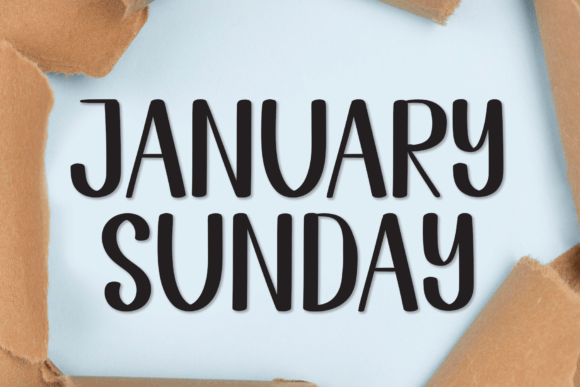
Step into the enchanting world of January Sunday, the script font that captures the essence of handwritten elegance. This all-caps masterpiece, crafted by Misterletter.co, takes inspiration from the beauty of handwritten notes, transporting you to a realm of creativity and charm. With its flowing lines and captivating curves, January Sunday is the ultimate choice for those seeking a font that exudes personality and grace.
Immerse yourself in the boundless possibilities that January Sunday presents. Whether you're designing captivating wall displays, crafting heartfelt wedding invitations, or creating eye-catching social media posts, this font will elevate your designs to new heights. Its versatility extends to product packaging, where it adds a touch of sophistication and allure. Unleash your creativity in designing labels, photography, and watermarks, allowing January Sunday to transform your projects into works of art.
Let the charm of January Sunday flow through your stationery, adding a personal touch to invitations and letterheads. Its delicate strokes evoke a sense of nostalgia and warmth, making it perfect for heartfelt messages and meaningful correspondence. Embrace the beauty of handwritten aesthetics and embark on a creative journey with January Sunday as your guide.